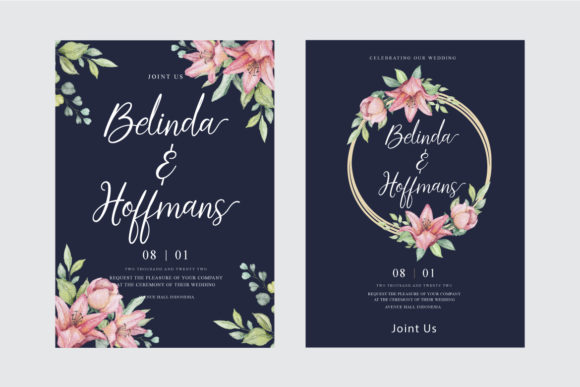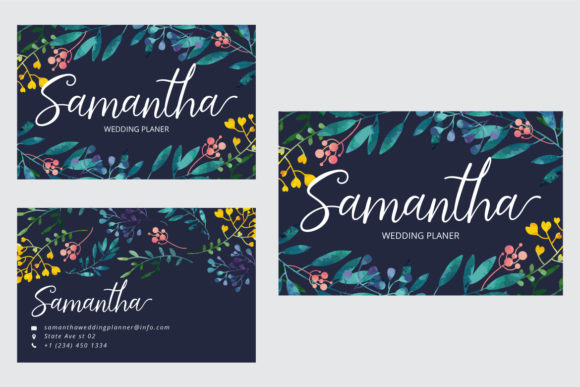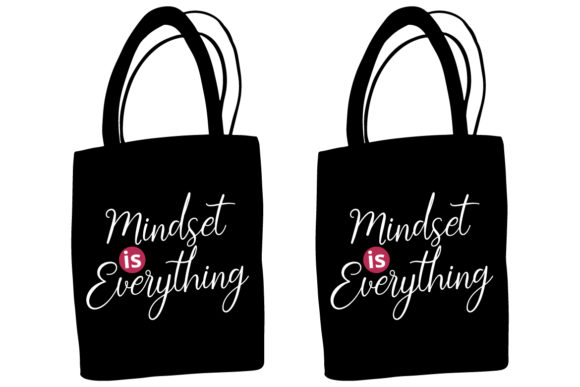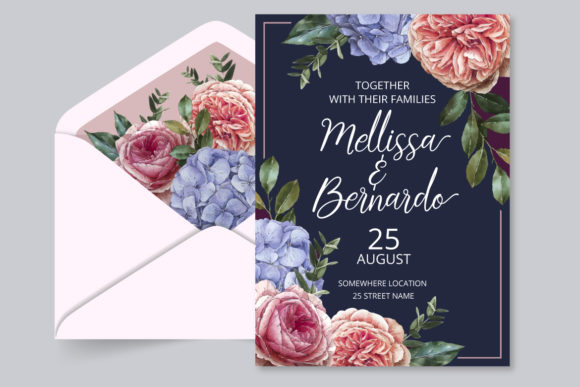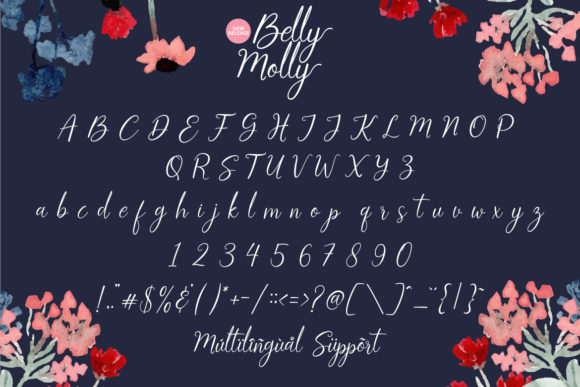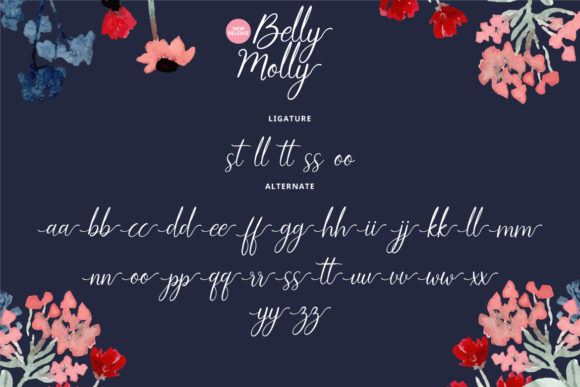
Introducing Belly Molly Font: Elevate Your Designs with Elegant Script
In the world of typography, a font can make or break a design. For designers and crafters seeking to add a touch of sophistication and elegance to their projects, Belly Molly Font is an exceptional choice. This beautiful script font boasts a contemporary atmosphere, impeccable form, and a balanced, varied aesthetic that is sure to enhance the beauty of your creations.
Inspired by Timeless Classic Calligraphy
Belly Molly Font draws inspiration from the timeless classics of calligraphy, bringing a sense of tradition and refinement to your designs. The font’s elegant strokes and flowing lines evoke a sense of luxury and sophistication, making it perfect for a wide range of applications, from wedding invitations and branding materials to packaging and digital media.
Balanced and Varied
One of the standout features of Belly Molly Font is its expertly balanced and varied design. Not too thin and not too thick, the font’s strokes are carefully crafted to create a sense of harmony and visual flow. This balance ensures that your text remains legible and easy to read, even at smaller sizes, making it a versatile choice for both print and digital applications.
Belly Molly Font is PUA (Private Use Area) encoded, which means that you can access all of the glyphs and swashes with ease. This encoding allows you to unlock the full potential of the font, giving you the creative freedom to experiment with different styles and effects. Whether you’re looking to add a touch of whimsy or create a more formal, elegant look, PUA encoding makes it easy to achieve your design goals.
Belly Molly Font is a dream come true for designers and crafters seeking to elevate their projects with beautiful, high-quality typography. Whether you’re working on a commercial design project or a personal crafting endeavor, this font is sure to impress. Its versatility and elegance make it suitable for a wide range of applications, including:
- Branding materials and logos
- Digital media, such as social media graphics and blog headers
- Personal crafting projects, like card making and scrapbooking
Why Choose Belly Molly Font?
With so many fonts available, why choose Belly Molly Font? Here are just a few reasons why this elegant script font stands out:
- Unique and distinctive design: Belly Molly Font boasts a one-of-a-kind design that is sure to set your projects apart.
- High-quality typography: With its impeccable form and balanced aesthetic, Belly Molly Font is perfect for projects where typography is front and center.
- Easy to use: PUA encoding makes it simple to access all of the glyphs and swashes, giving you the creative freedom to experiment with different styles and effects.
In conclusion, Belly Molly Font is an exceptional choice for designers and crafters seeking to add a touch of elegance and sophistication to their projects. With its timeless classic calligraphy inspiration, balanced and varied design, and PUA encoding, this font is sure to elevate the beauty of your creations. Whether you’re working on a commercial design project or a personal crafting endeavor, Belly Molly Font is a versatile and beautiful choice that is sure to impress.